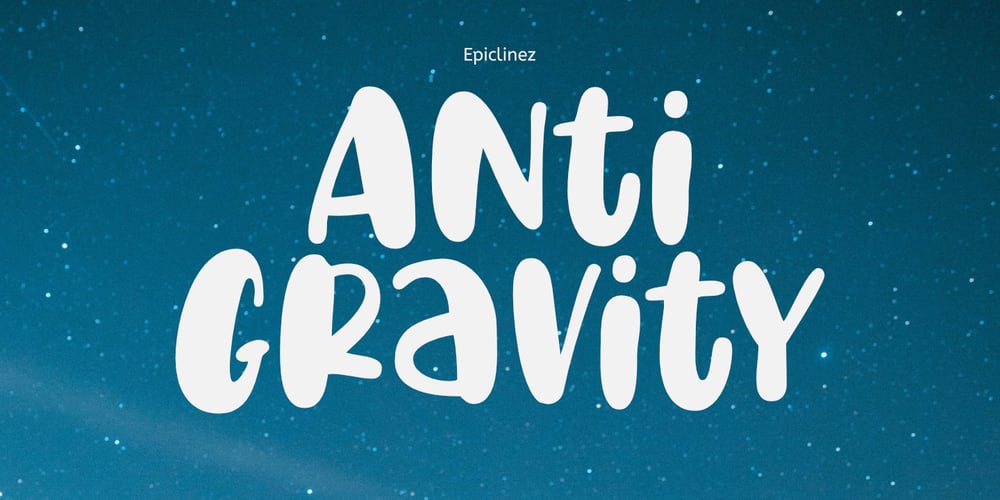
Anti Gravity
Anti Gravity font
Anti Gravity Font Family was designed by Aldy Sidik and published by Epiclinez. Anti Gravity contains 1 styles and family package options. Anti Gravity is a cute and funny handwritten font. It’s simple and playful style makes this design incredibly versatile, fitting a wide variety of creative ideas.